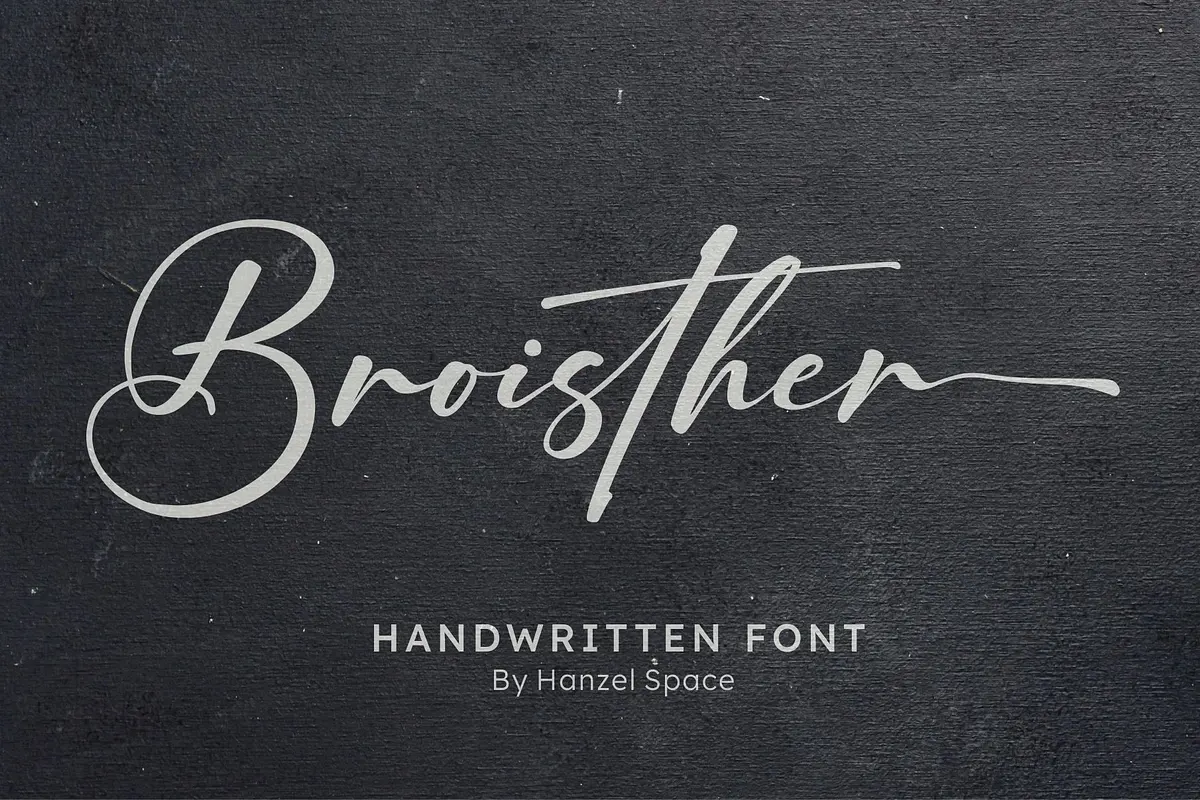
Broisther Handwritten Font Free Download
Broisther Font Free Download is a stylish handwritten typeface that blends modern script elegance with a natural, personal touch. Featuring smooth strokes, authentic curves, and a casual yet refined vibe, Broisther is perfect for branding, logos, wedding invitations, social media graphics, product packaging, and creative quotes.
Designed to mimic real handwriting, Broisther Font Free Download brings warmth and individuality to your designs. Its organic flow and stylish alternates make it ideal for projects that need a handwritten, heartfelt tone while still looking professional and polished.
Whether you’re crafting a boutique brand identity or designing a personal blog logo, Broisther offers versatility and charm. It pairs wonderfully with minimalist sans-serif fonts for a balanced, modern aesthetic that feels both trendy and timeless.